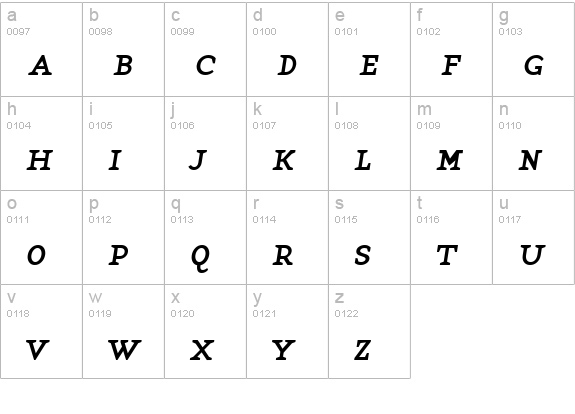
BaseTwSerifSmallCaps Italic Font Details
BaseTwSerifSmallCaps Italic is a distinctive, italic variant in the BaseTwSerifSmallCaps typeface family \xE2\x80\x94 well suited to design and typography projects.
Introducing BaseTwSerifSmallCaps Italic font - a sophisticated and elegant typeface that exudes charm and style. With its unique blend of classic serifs and modern small caps, this font is perfect for adding a touch of sophistication to any design project. The slanted italic style adds a dynamic and energetic flair, making it ideal for headings, branding, and editorial designs. What's even better is that BaseTwSerifSmallCaps Italic font is available for free download at FontsMarket.com. You can easily access this versatile font to elevate your creative projects without any cost. Embrace the timeless beauty of BaseTwSerifSmallCaps Italic font and make your designs stand out with its exquisite detailing and refined aesthetic.